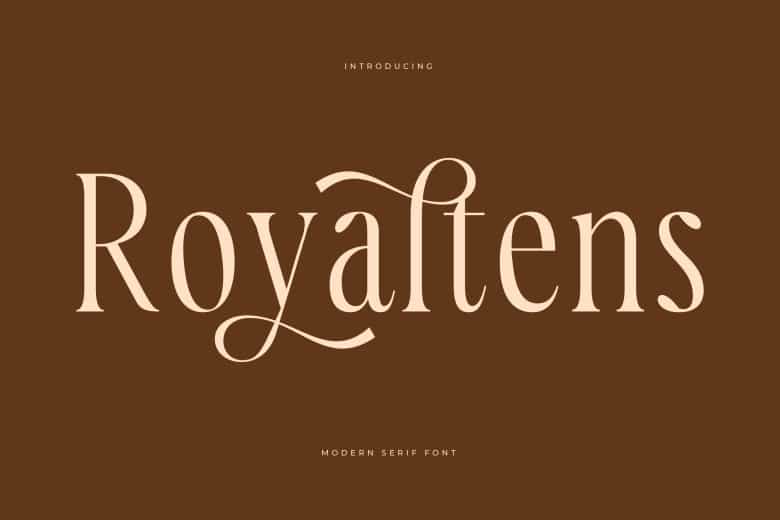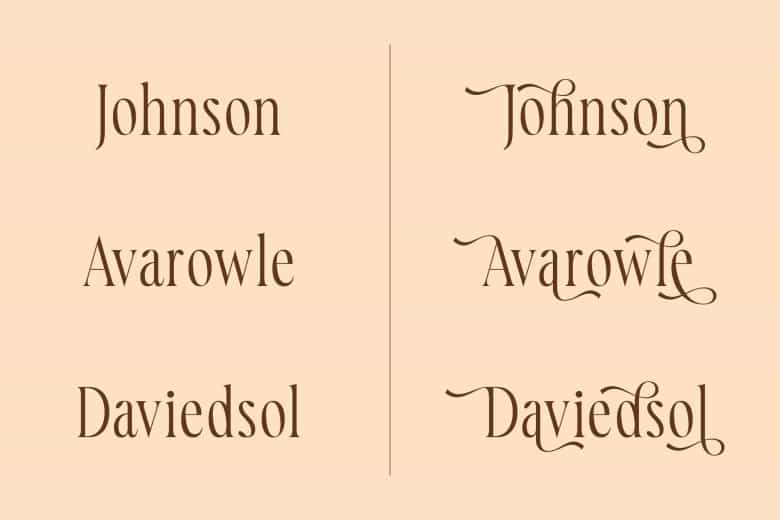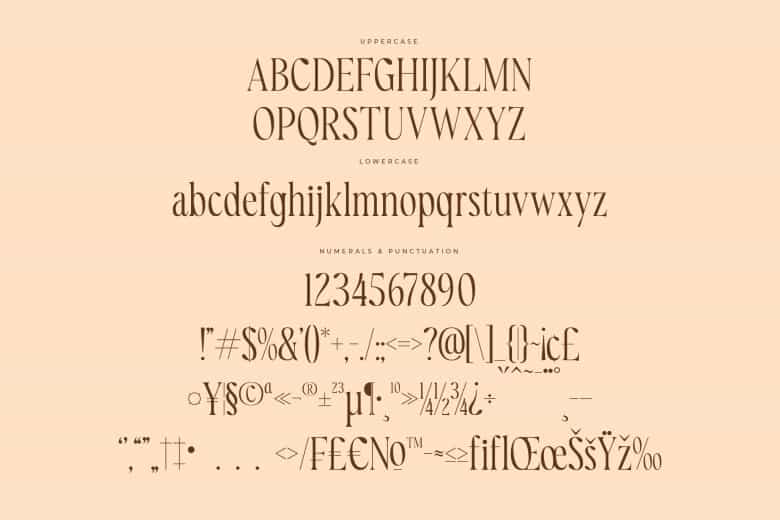
Royaltens can be described as an elegant serif typeface that blends modernity with tradition. With its smooth lines and well-balanced proportions, Royaltens makes an excellent choice for editorial designs as well as logos, branding and branding projects. Thanks to its timeless appeal and versatility, Royaltens elevates any project by adding elegance and professionalism.